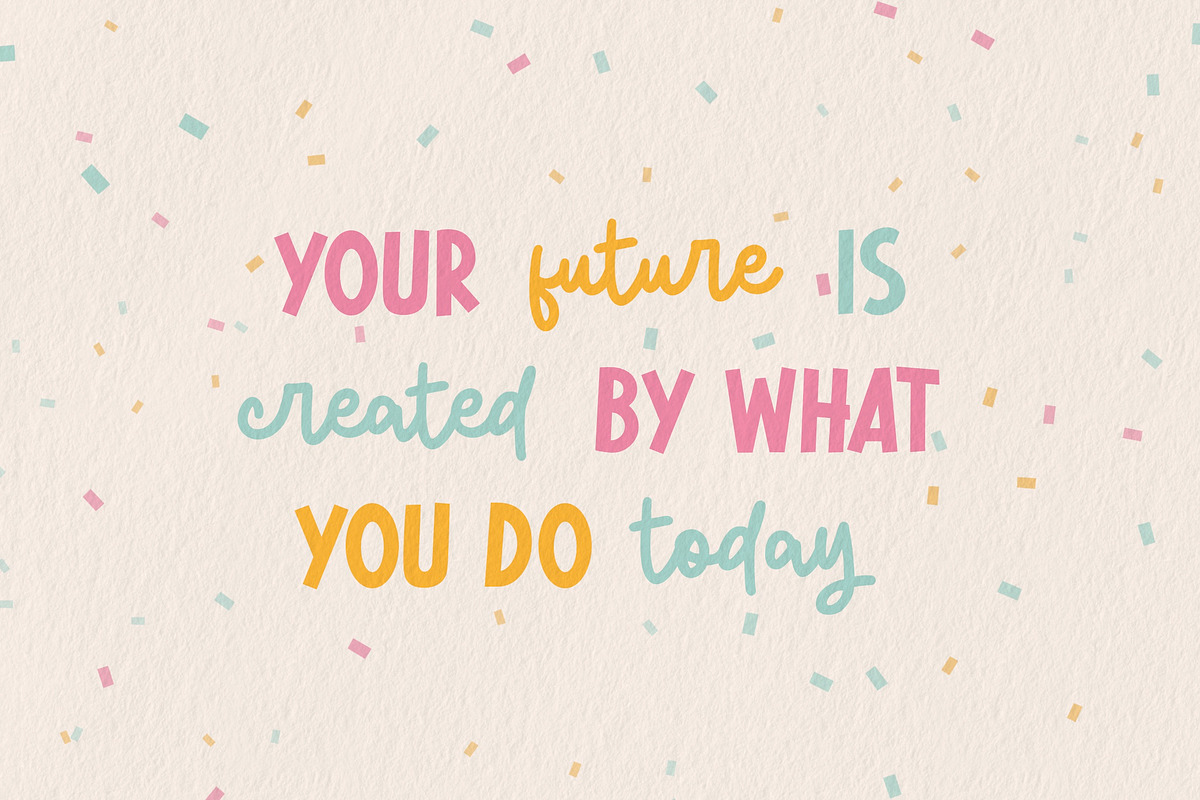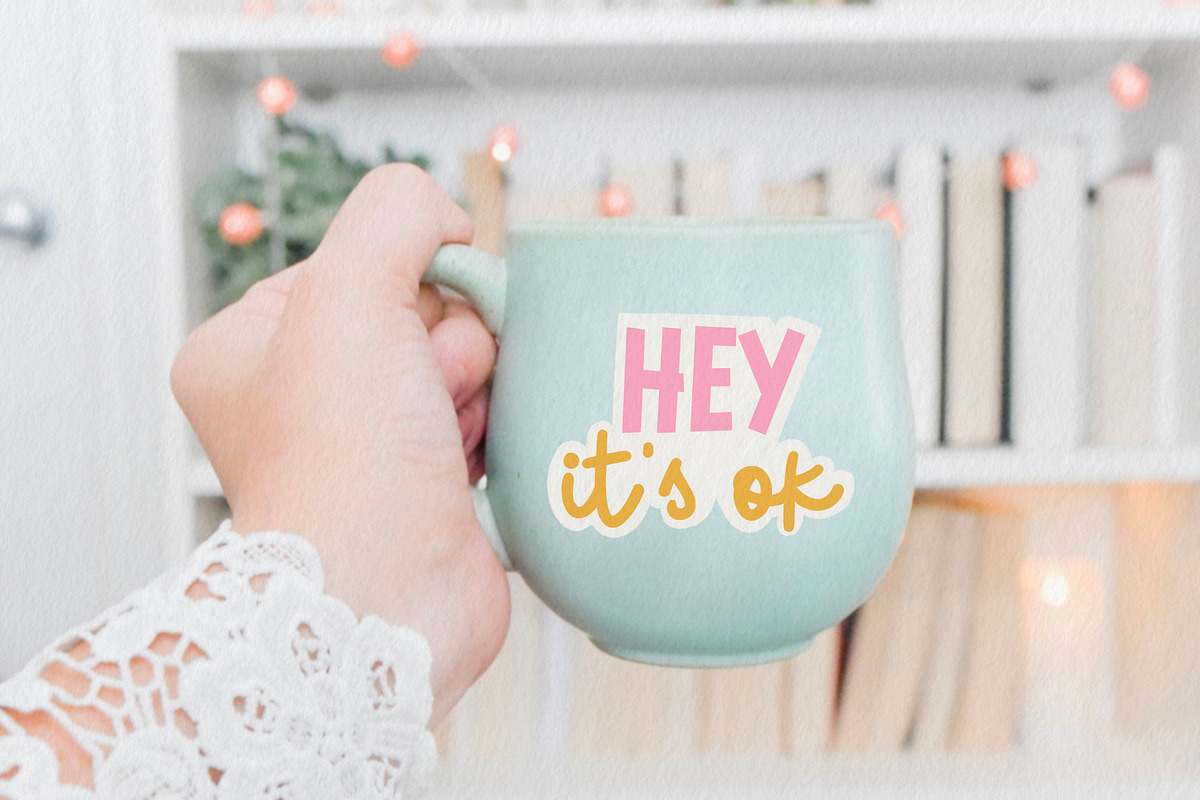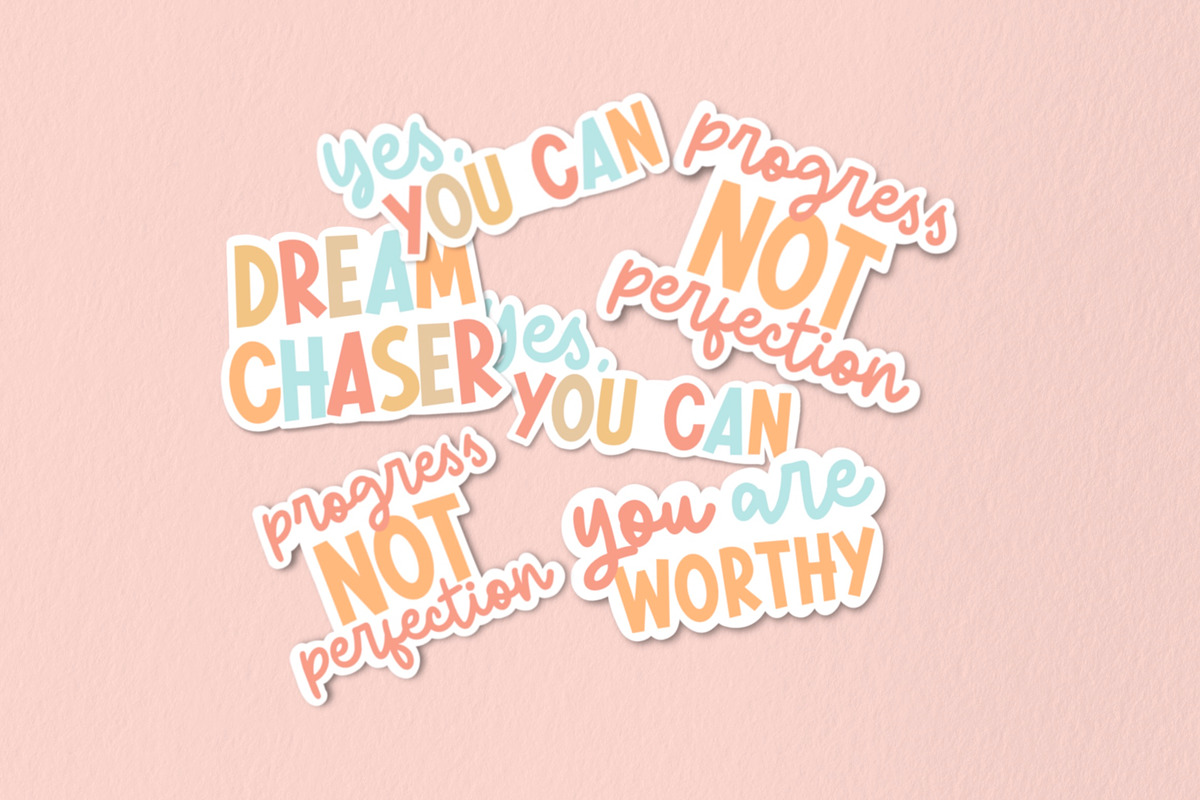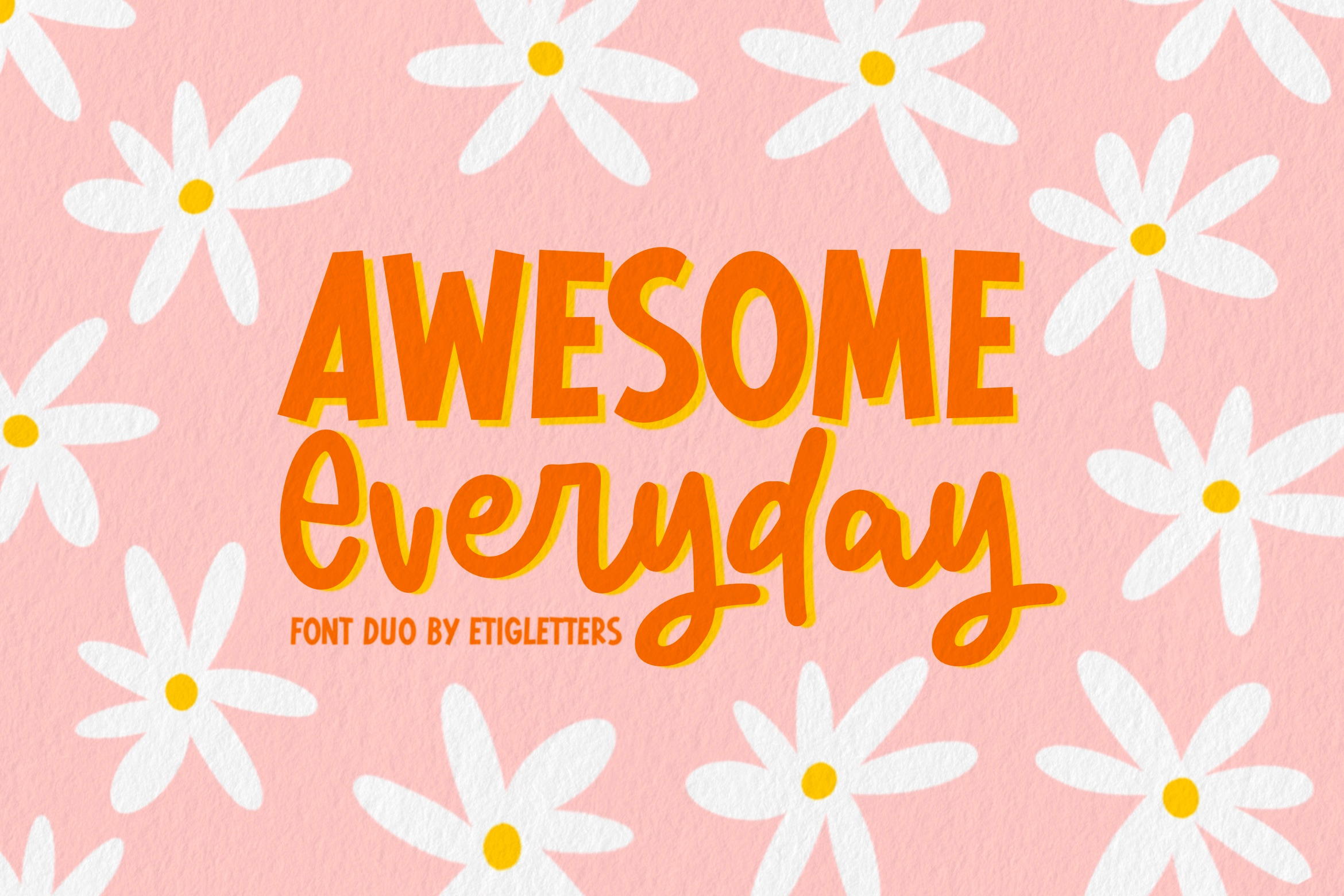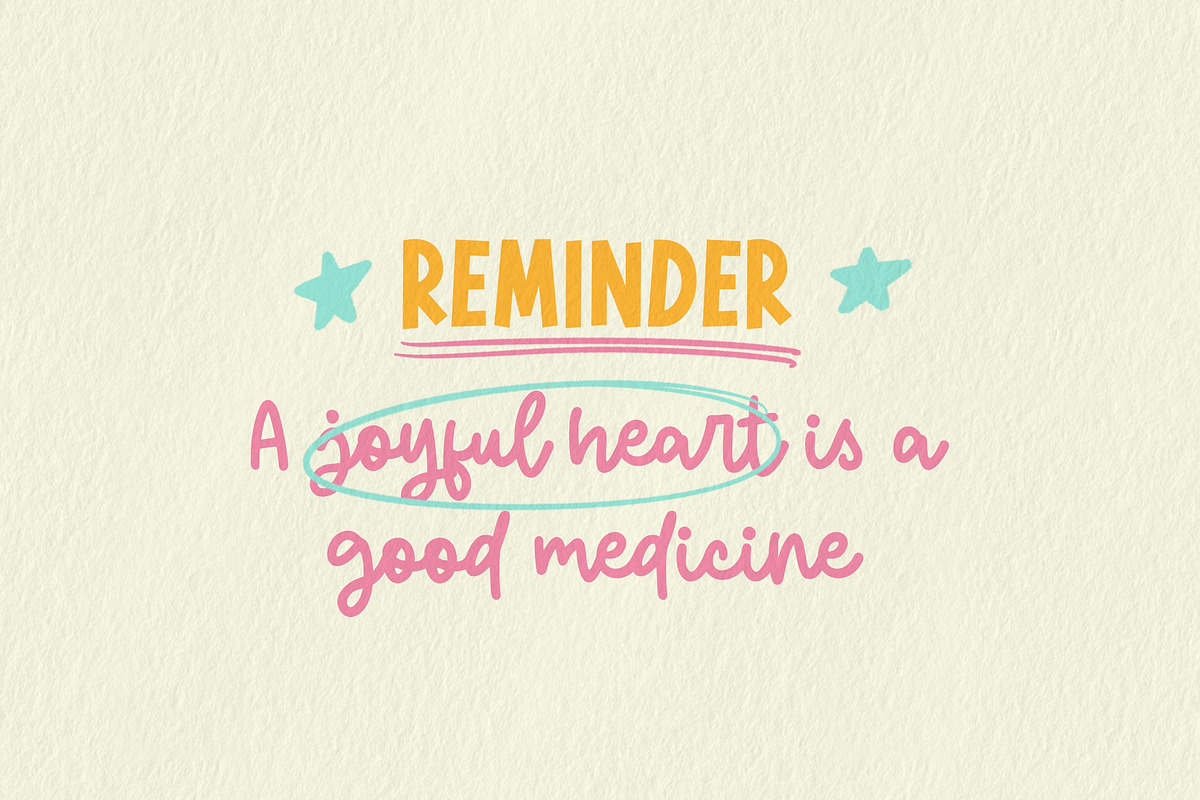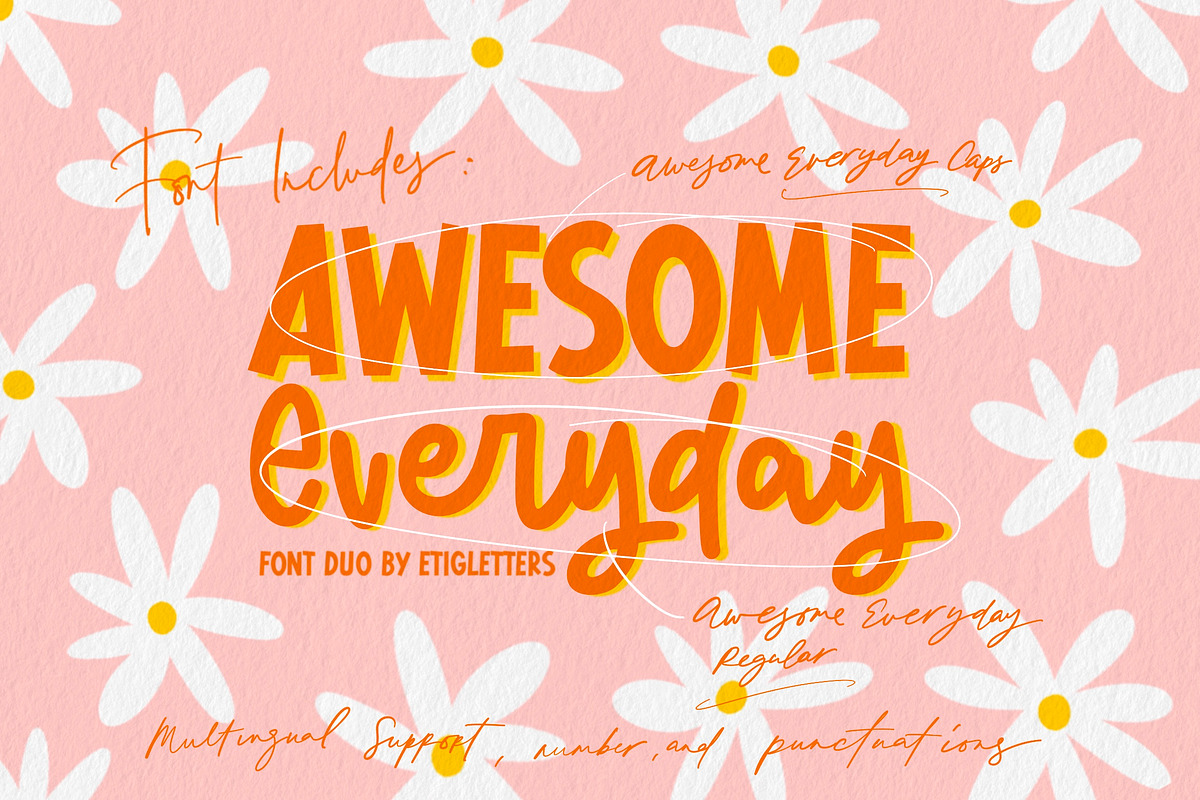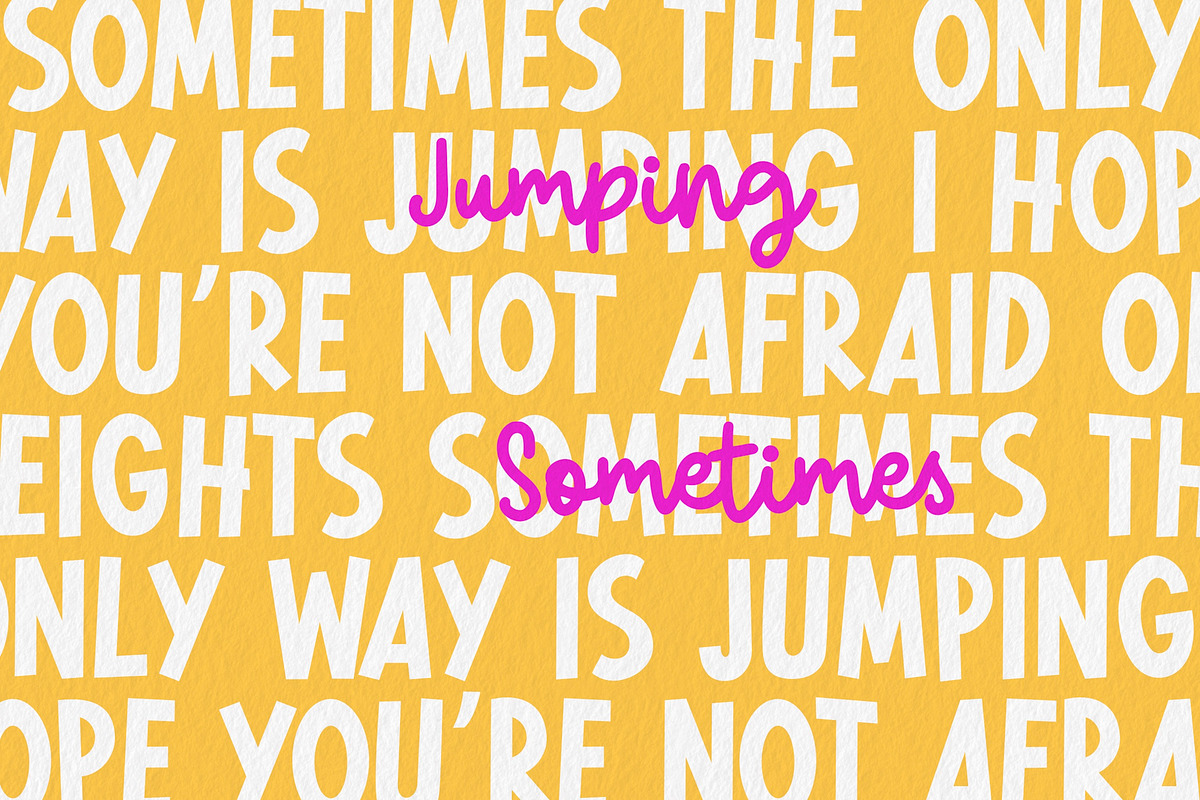
Awesome Everyday Font Duo
Introducing, Awesome Everyday - a handwritten combo pairing with playful sans. Awesome Everyday will be perfect for stickers, greeting cards, logos, posters or anything that requires a fun and happiness look!
This font also suitable to be combined with sans serif that will make your design more perfect. Also already PUA Encoded!